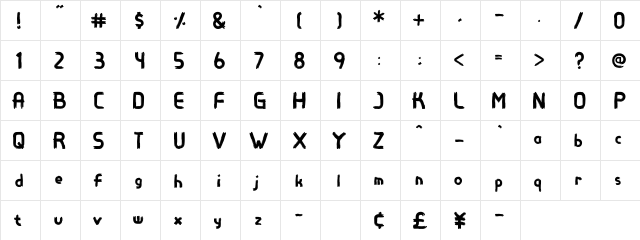
Antreas Regular
| Foundry | Fontdation Studio |
| Designer | Fontdation Studio |
Design Context for Antreas Typeface
Antreas offers clean, dependable letterforms without strong stylistic allegiance, making it a practical choice for designers who need flexibility.
Pro Tip: Pair Antreas with a font of contrasting weight or personality to build a more expressive typographic hierarchy.